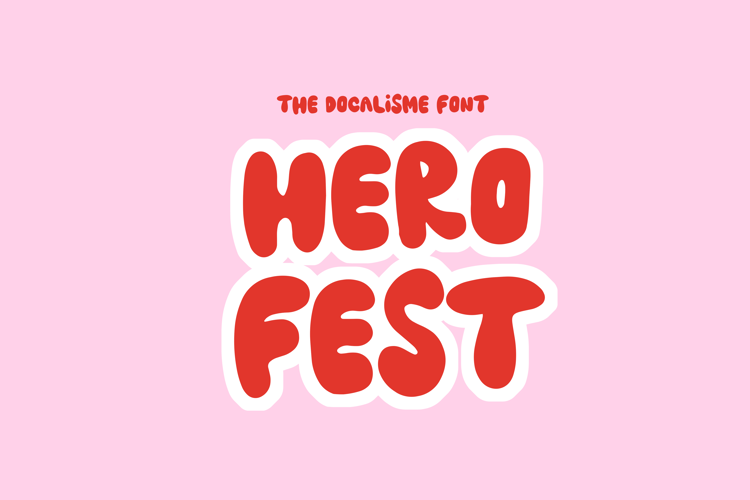
Hero Fest Font
About Hero Fest Font
Hero Fest a fun and bubbly display font. It will lift your design and add a cheeky touch. No matter the topic, this font will be an incredible asset to your fonts’ library, as it has the potential to elevate any creation.